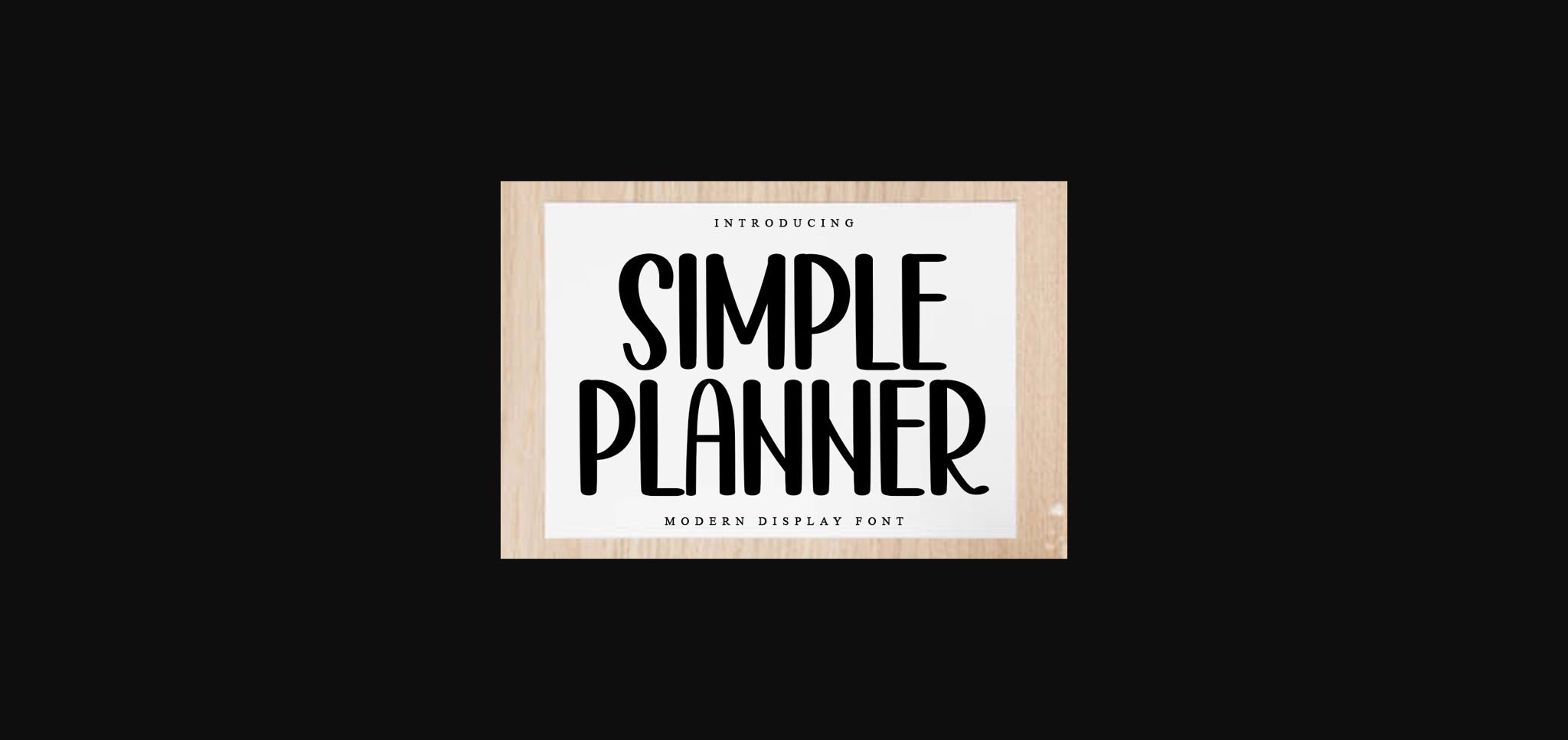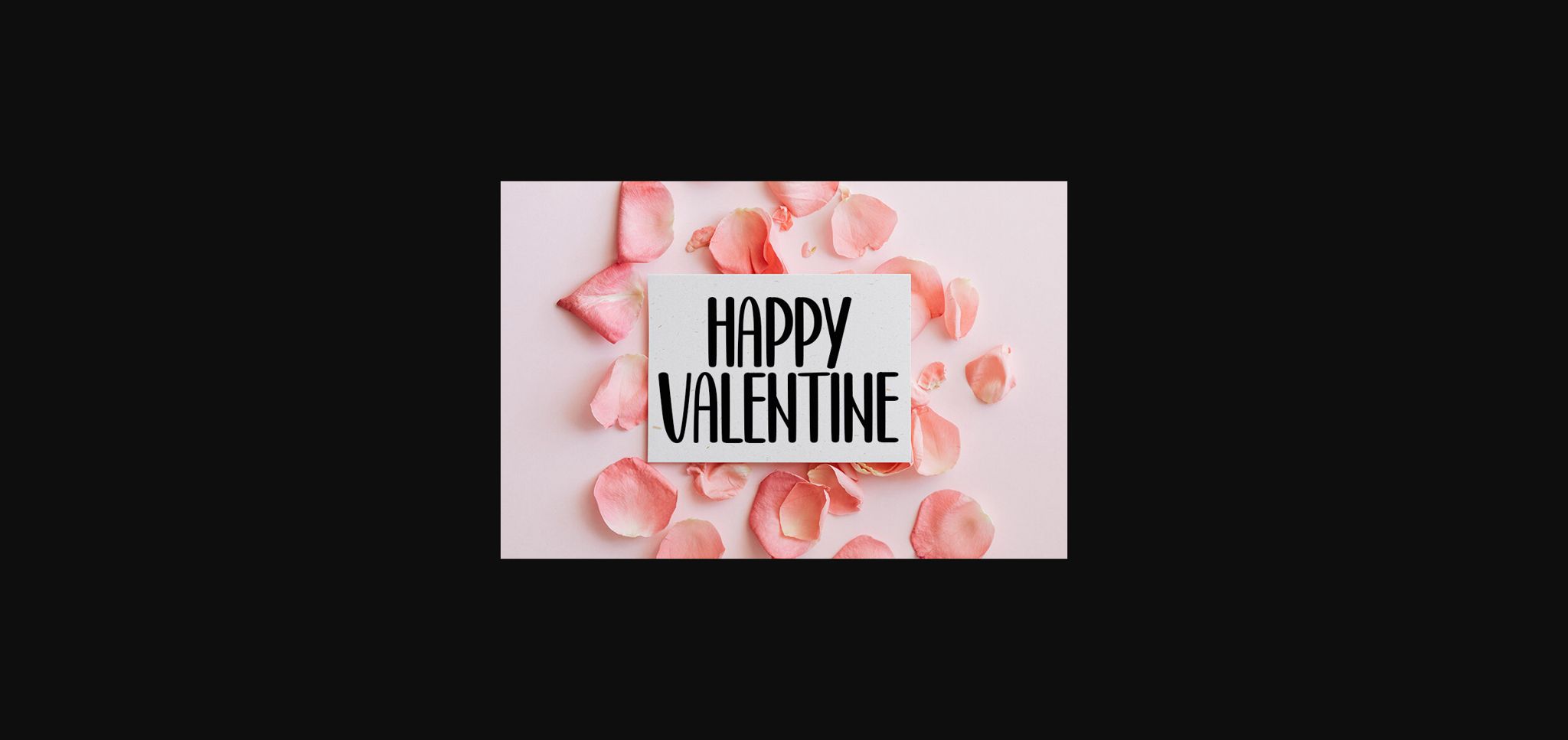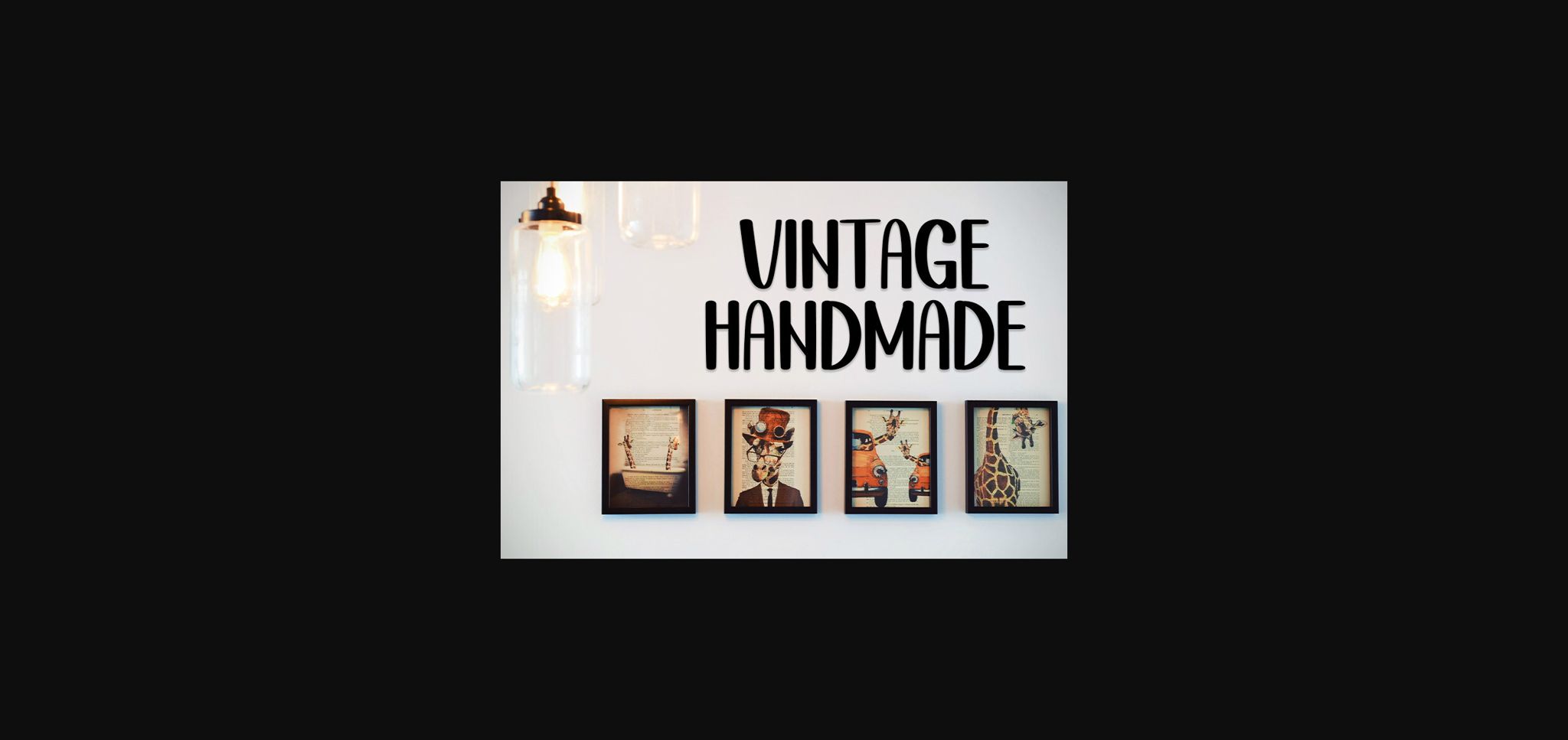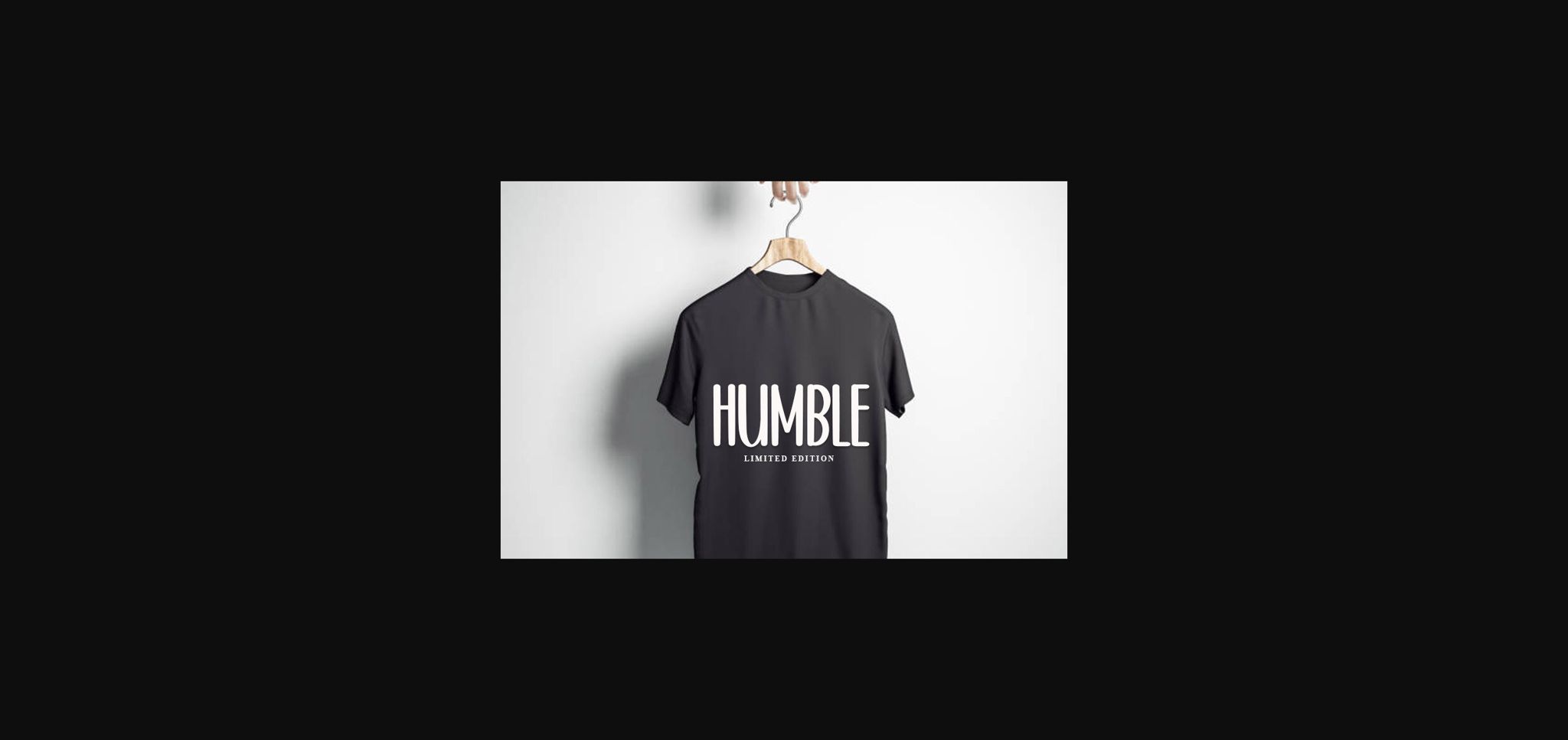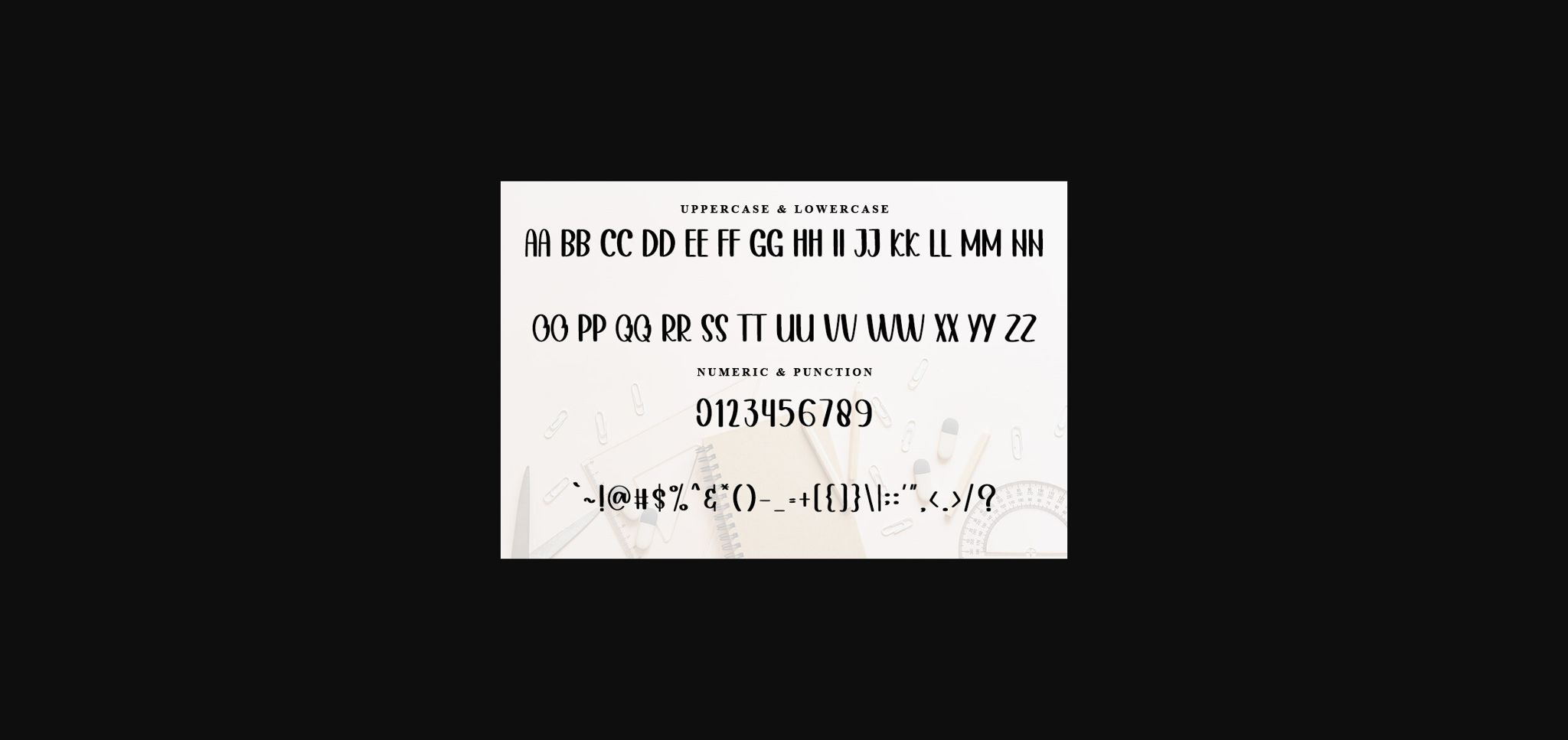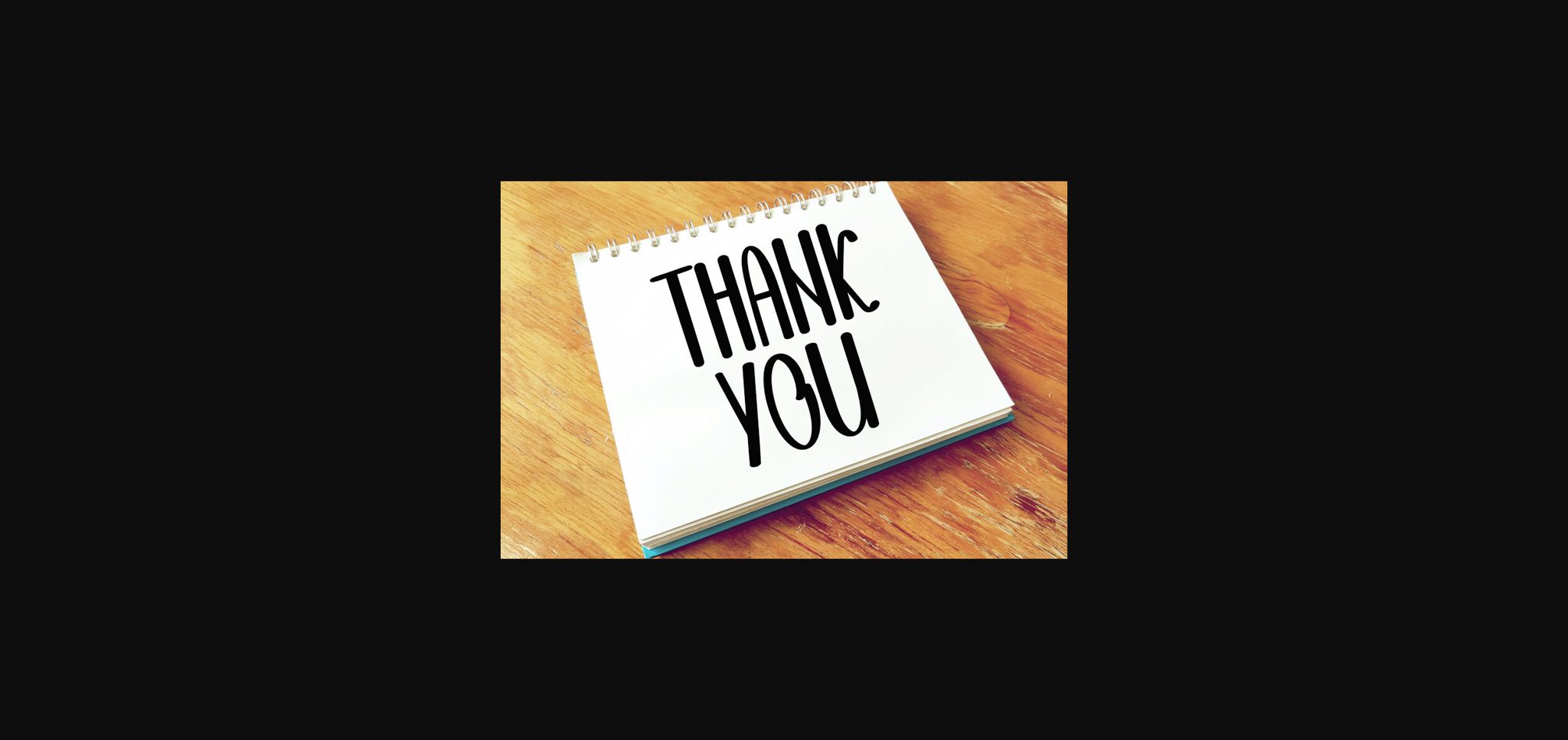
Simple Planner Font
About Simple Planner Font
Simple Planner is a fun sans-serif font carefully created with a touch of elegance. Whether you’re looking for fonts for Instagram or calligraphy scripts for DIY projects, this font will turn any creative idea into a true piece of art!